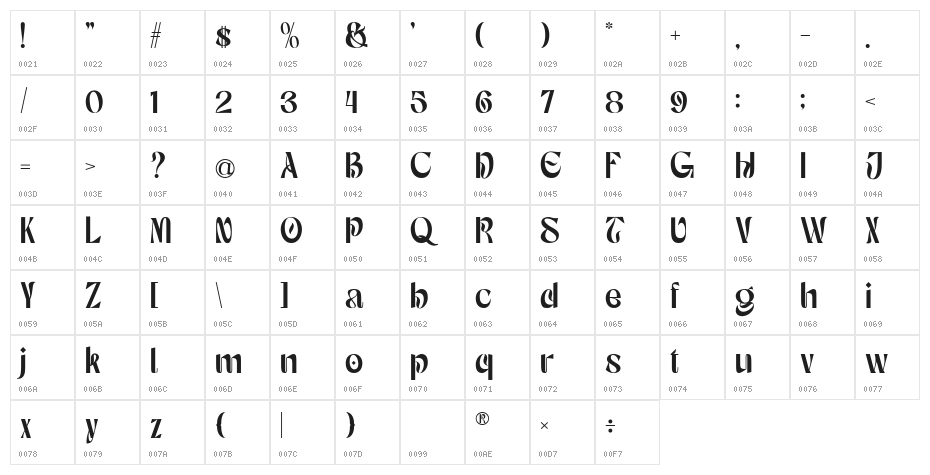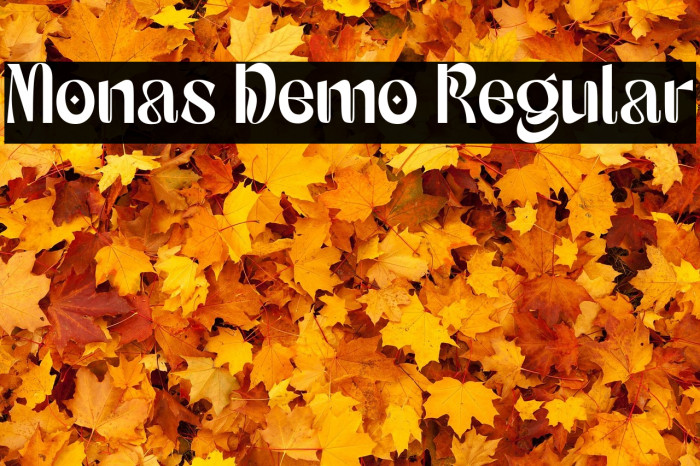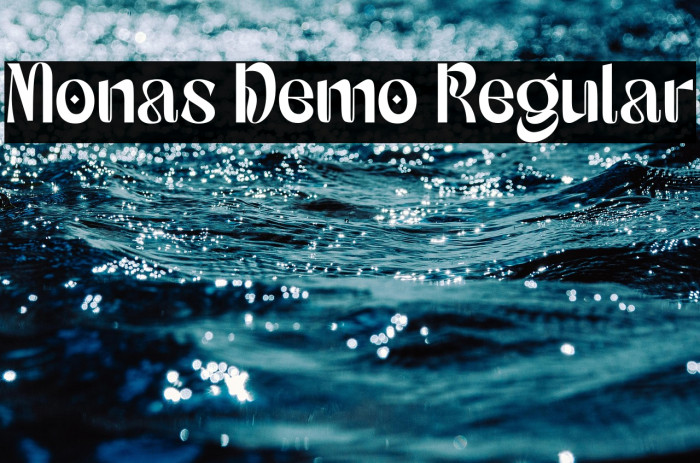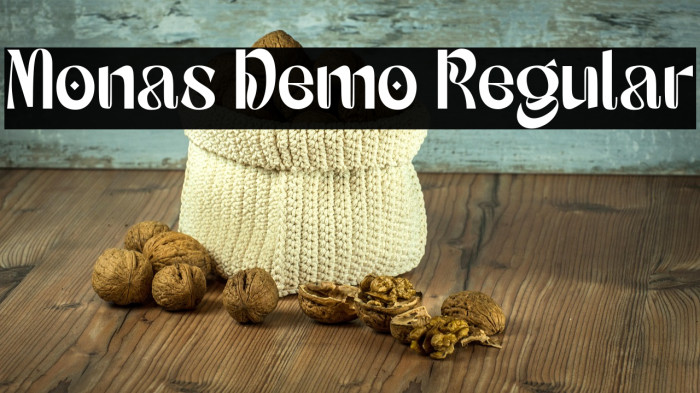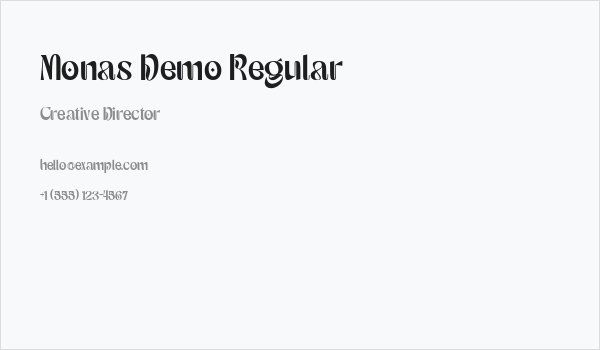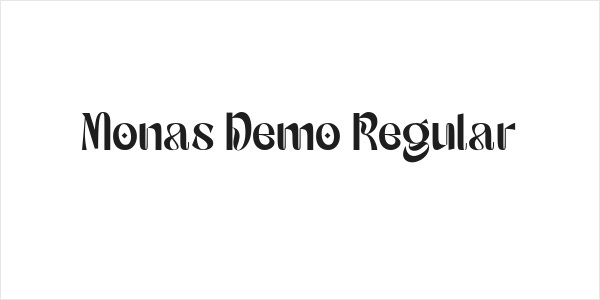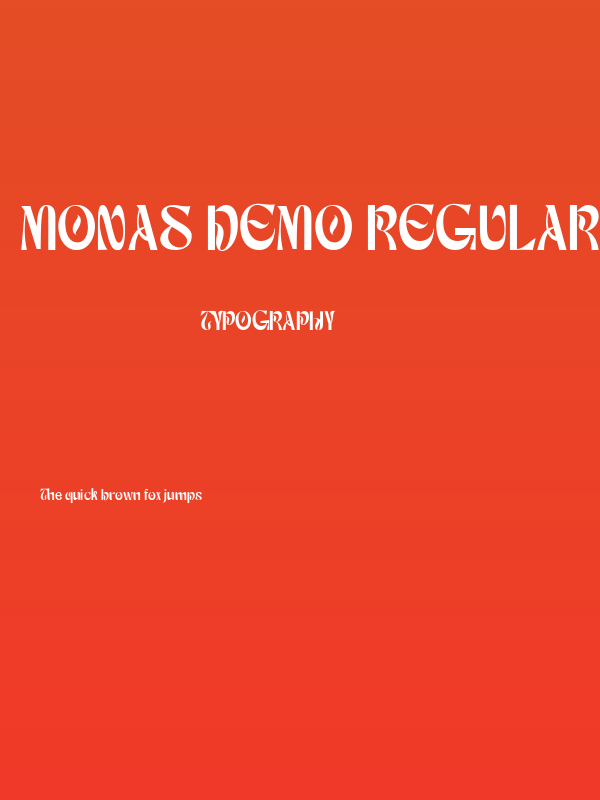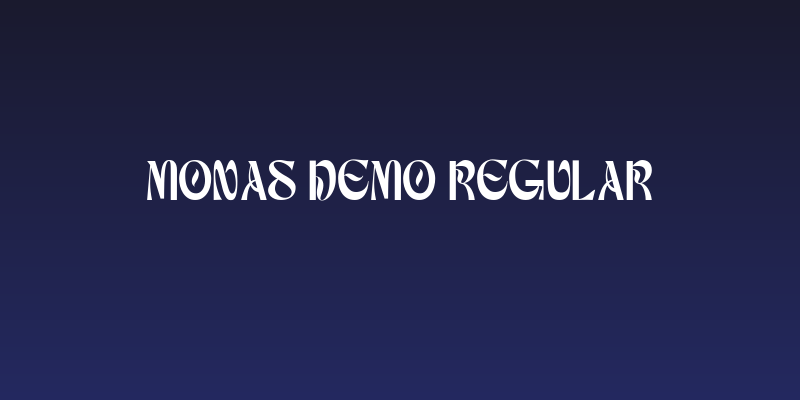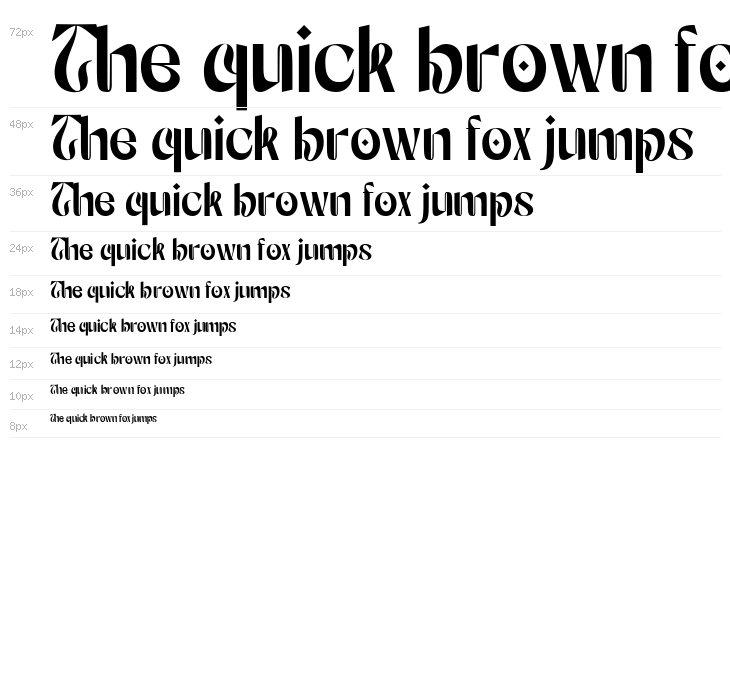
Monas Demo Regular Font
Monas Demo Regular Description
This font features a bold and artistic design with a unique blend of curves and sharp edges, creating a striking visual impact. The uppercase letters exhibit a strong presence with their thick strokes and intricate detailing, while the lowercase letters maintain a consistent style with slightly more fluidity. The numerals are bold and easily readable, complementing the overall design. Special characters are creatively styled, adding to the font's decorative appeal. This font's distinct style makes it suitable for eye-catching headlines and creative projects.
| Proposed Projects | Ideal for branding, posters, album covers, and any project requiring a bold, artistic touch. |